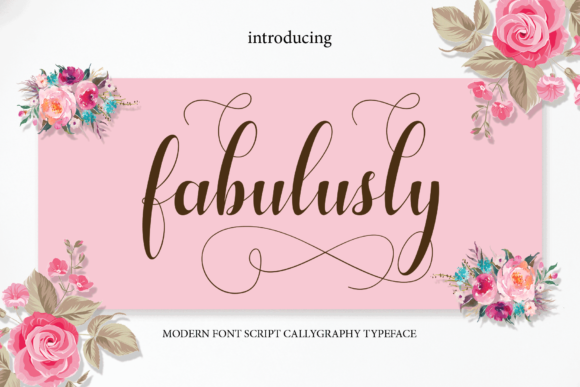
Welcome to the realm of Fabulusly Font, where calligraphy takes on a life of its own, painting a picture of joy and romance. This enchanting script is not just a font; it's an expression of your boundless creativity.
Let Fabulusly Font guide you through a world of wedding wonders, where invitations flutter with a touch of magic and table settings exude an air of elegance. Its playful spirit dances across every letter, adding a charm that will captivate your guests.
But Fabulusly Font's versatility extends far beyond the realm of nuptials. It's a font for dreamers, for those who dare to add a dash of whimsy to their everyday projects. Let it grace your greeting cards, social media posts, and even your business branding. Its ability to transform the ordinary into the extraordinary is truly remarkable.
With Fabulusly Font, you're not just downloading a font; you're inviting a world of creative possibilities into your design toolbox. Its unique appeal will inspire you to create projects that are infused with personality and style.
So why settle for ordinary fonts when you can have the extraordinary? Let Fabulusly Font ignite your creativity and captivate the world with your captivating designs. Its romantic flow, playful charm, and endless versatility will make every project a masterpiece.
Unlock the power of Fabulusly Font today and let your designs dance with joy!